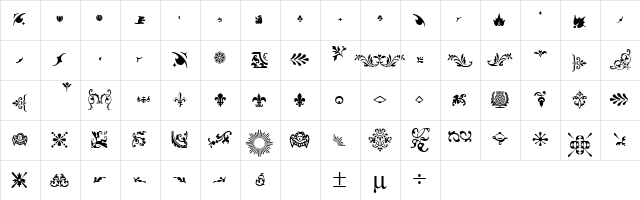
FZ DING 31 Regular Font Preview
FZ DING 31 Regular
Design Context for FZ DING 31 Typeface
FZ DING 31 is a composed and adaptable typeface that performs quietly and consistently across a wide range of design contexts.